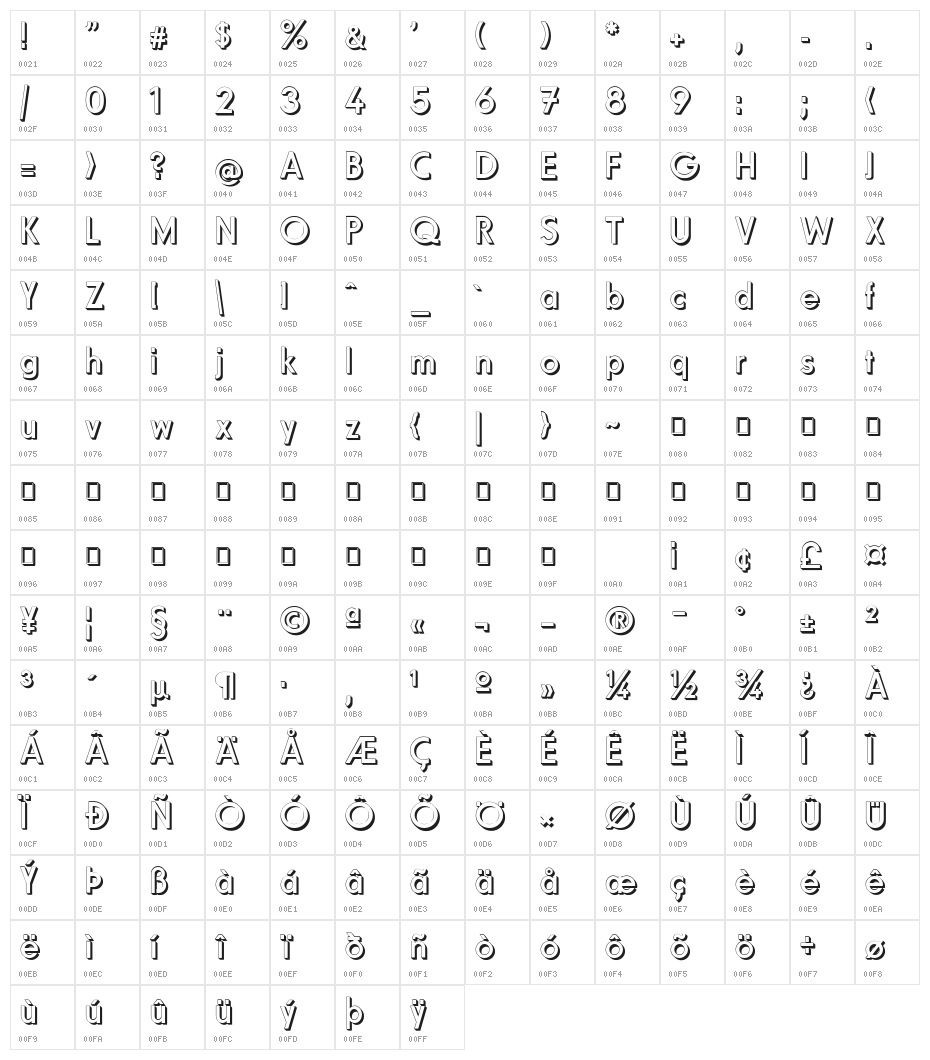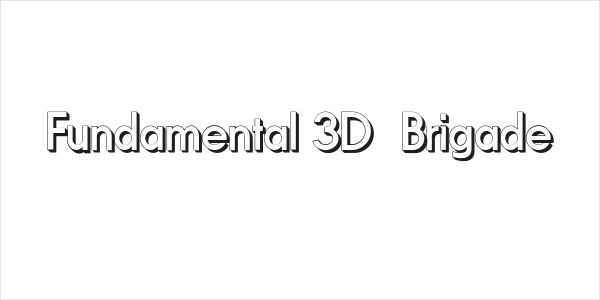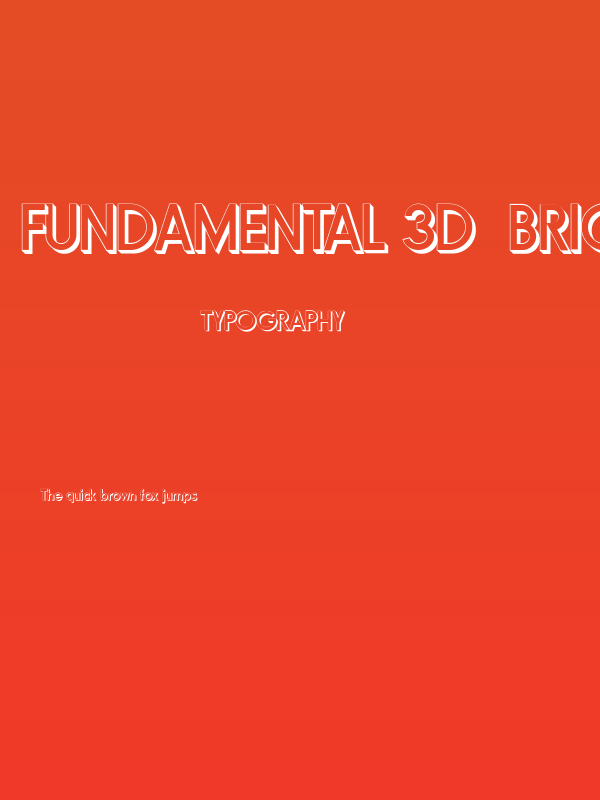
Fundamental 3D Brigade Font
Fundamental 3D Brigade Description
This font features a bold, three-dimensional design that creates a striking visual impact. The characters are outlined with a thick black border, giving them a shadowed effect that enhances their depth. The letterforms are geometric and sans-serif, providing a modern and clean appearance. The uppercase and lowercase letters maintain a consistent style, with rounded edges and uniform stroke widths. Numbers and special characters are designed with the same attention to detail, ensuring a cohesive look across all elements. This font is ideal for projects that require a bold statement and a contemporary feel.